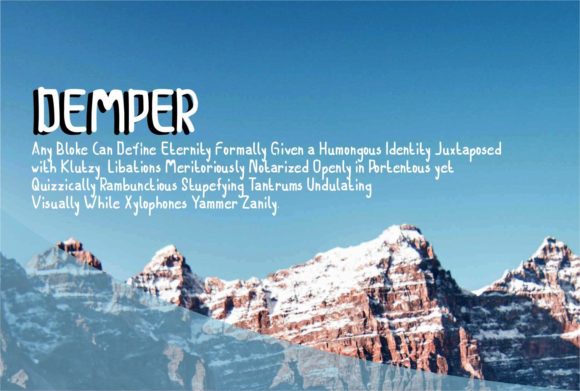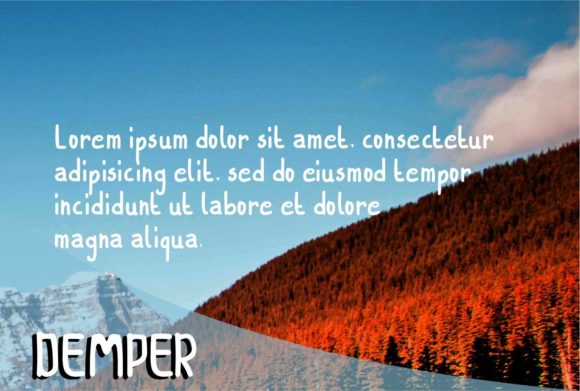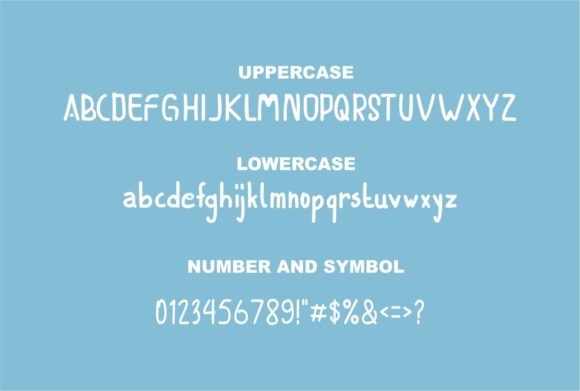
The Perfect Canvas for Your Creativity
Have you ever found yourself stuck in a design rut, searching for the perfect font to bring your ideas to life? The blank page stares back, and your mind is a jumble of possibilities. Suddenly, a spark ignites, and you remember a font that’s been hiding in your digital stash – Demper Font. Its simple, friendly, and clean design is the perfect catalyst to get your creative juices flowing.
Demper Font is more than just a font – it’s a tool to unlock your full design potential. With its versatility and endless possibilities, you’ll find yourself experimenting with new layouts, colors, and compositions. Whether you’re a seasoned designer or just starting out, Demper Font is a valuable asset to have in your toolkit. It’s the perfect companion for your next design project, waiting to inspire and elevate your work.
Demper Font Key Features
- Font Family: Demper Font is a unique, hand-drawn sans-serif font designed to add a touch of elegance and sophistication to any design.
- Unique Characteristics: Demper Font features a distinctive, handwritten feel with subtle imperfections, giving it a personal and authentic touch.
Demper Font Review
At first glance, the Demper font seems like a promising addition to any design project. Here are a few things that work well: ✨
- Demper’s unique blend of modern and vintage elements creates a visually interesting look that’s sure to grab attention.
- The font is highly customizable, allowing designers to tweak its appearance to fit their specific needs.
- Demper is available in a wide range of languages, making it a great option for international projects.
However, there are a few limitations to be aware of: ⚠️
- The font may be too bold for certain applications, such as body text or small headlines.
- Some users may find the font’s unique style too distracting or overwhelming.
- The font’s high customizability can also make it feel inconsistent or disjointed if not used carefully.
Overall, I’d say the Demper font is a solid choice for designers who want to add some visual interest to their projects. With careful use, it can be a real showstopper. However, it’s not for every project, and designers should be prepared to use it judiciously to avoid overwhelming their audience.
Tips for Getting the Most Out of Demper Font
Demper Font is perfect for creating unique and eye-catching designs. Here are some tips to get the most out of it:
- Use Demper Font for headings and titles to create a bold and striking visual impact.
- Combine Demper Font with other fonts to create a visually appealing contrast.
- Experiment with different font sizes and styles to create a unique and dynamic look.
Demper Font is perfect for:
- Creating eye-catching headlines and titles.
- Designing unique and memorable brand identities.
- Adding a touch of
Alternatives to Demper Font
Demper Font is a sans-serif font known for its geometric and modern design. However, for designers looking for alternatives, here are a few options: